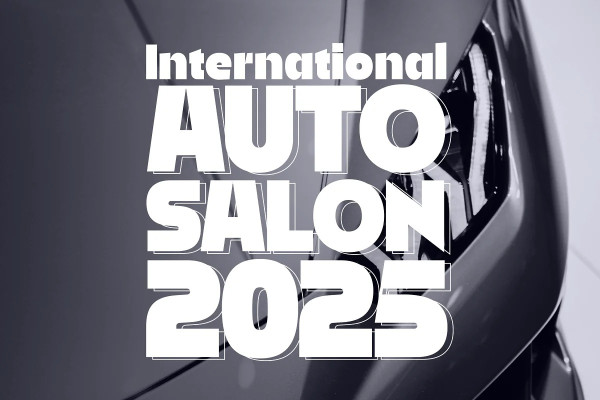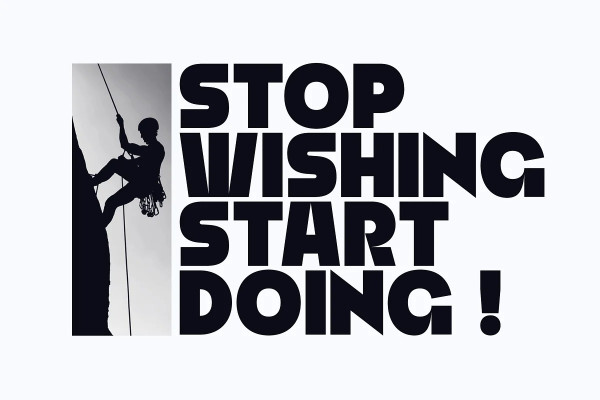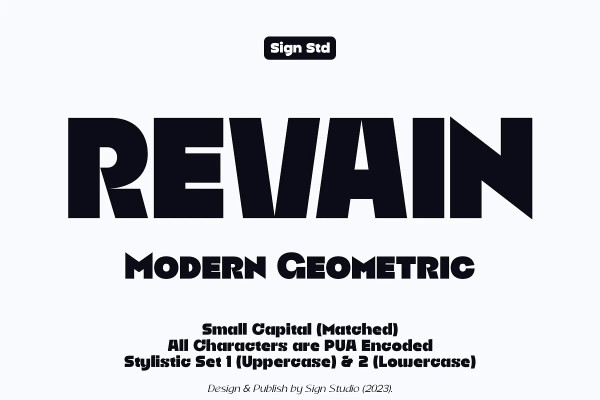
Revain Font
Revain Font is a new geometric sans-serif that is a bit serious, but not that serious. It’s for when you need a legible typeface with a bit of flair and fun. Equipped with an OpenType feature that can make a variety of style choices, namely: Small Caps, Stylistic Set 1 (for Uppercase), Stylistic Set 2 (for Lowercase). All characters have been PUA Encoded so that they can be accessed on most software in general.